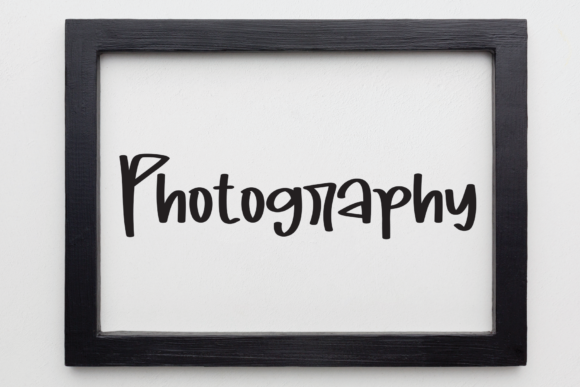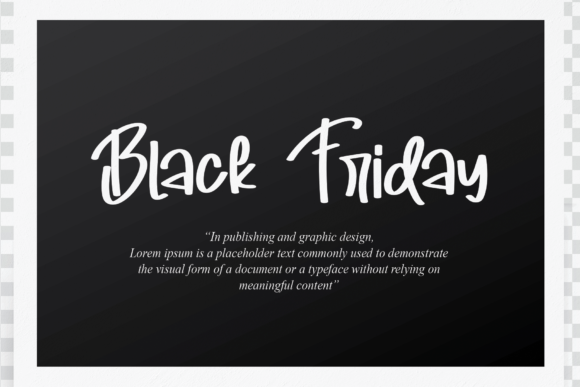
Japanes Font
db-ku.com - Script & Handwritten -- Japanes is a cool and unique handwritten font inspired by Japanese writing. It works beautifully well with wall displays, wedding invitations, social media post logos, advertisements, product packaging, product designs, labels, photography, watermarks, invitations, stationery, and any project that requires a handwritten feel.